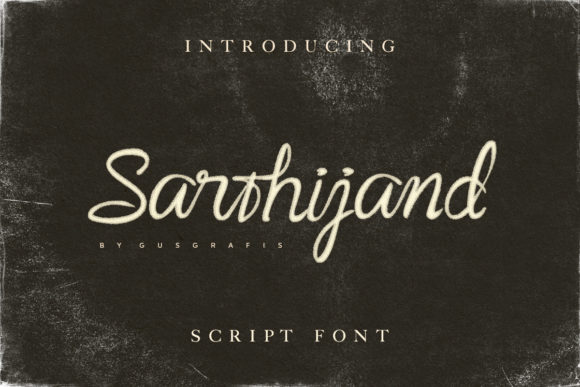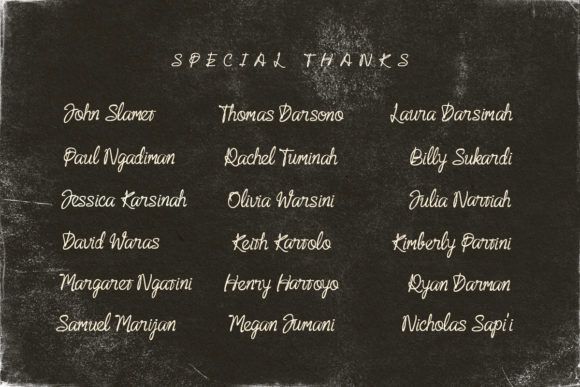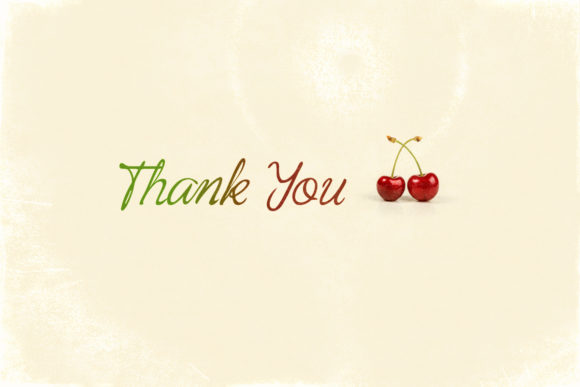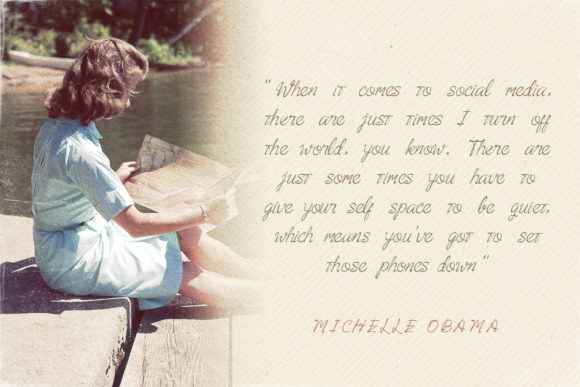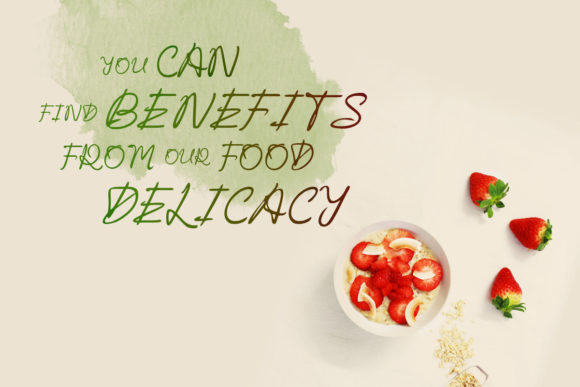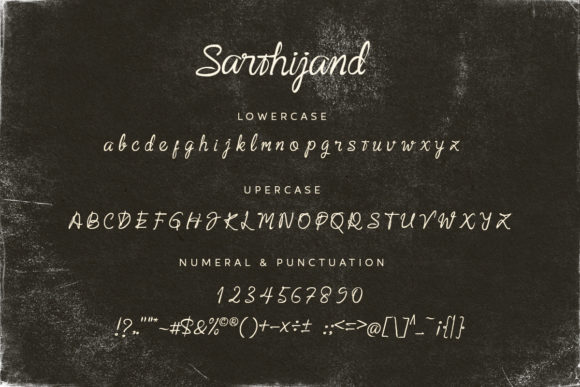
Sarthijand Font
About Sarthijand Font
Sarthijand is a modern handwritten font carefully created with a touch of elegance. Whether you’re looking for fonts for Instagram or calligraphy scripts for DIY projects, this font will turn any creative idea into a true piece of art!